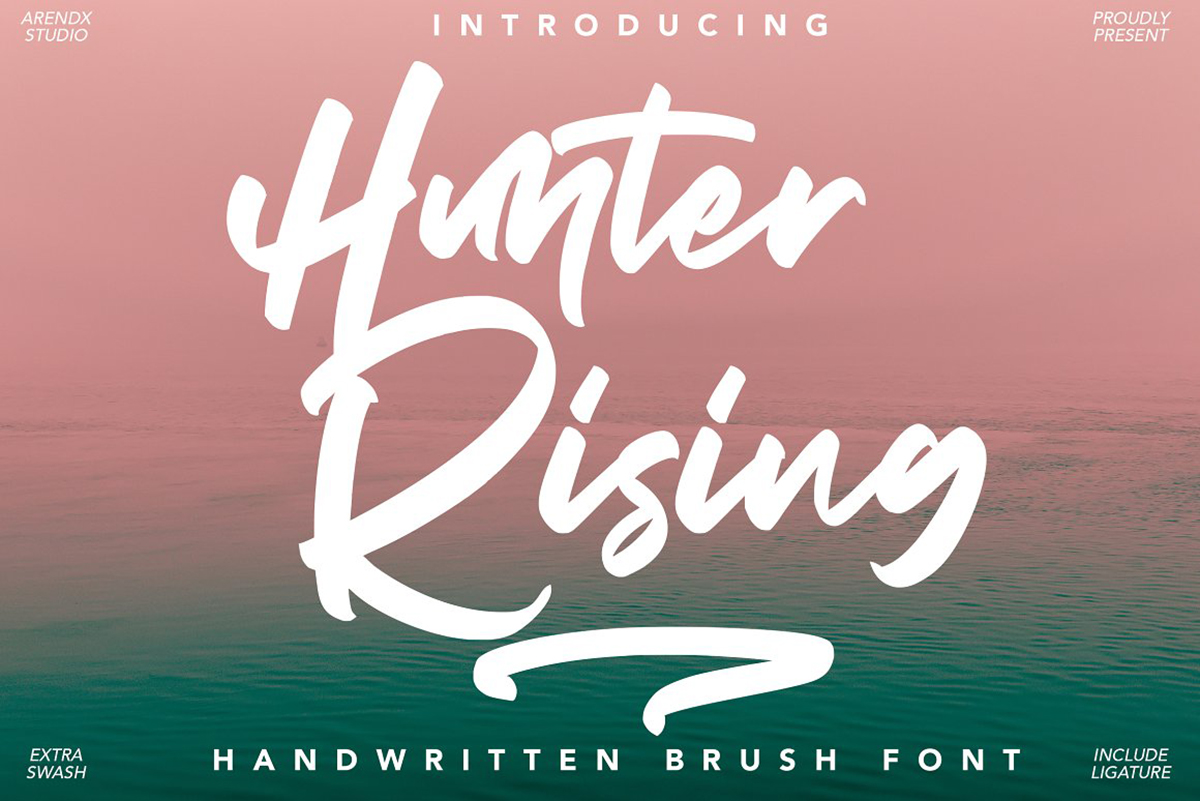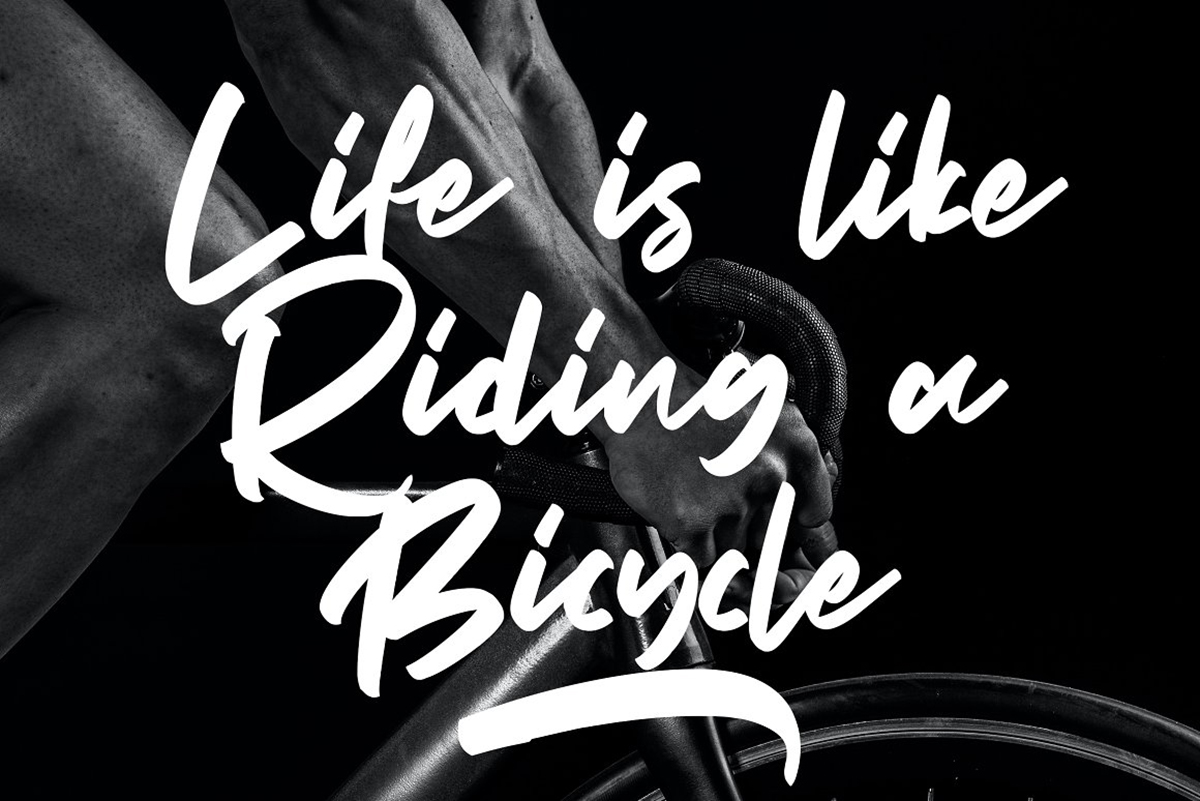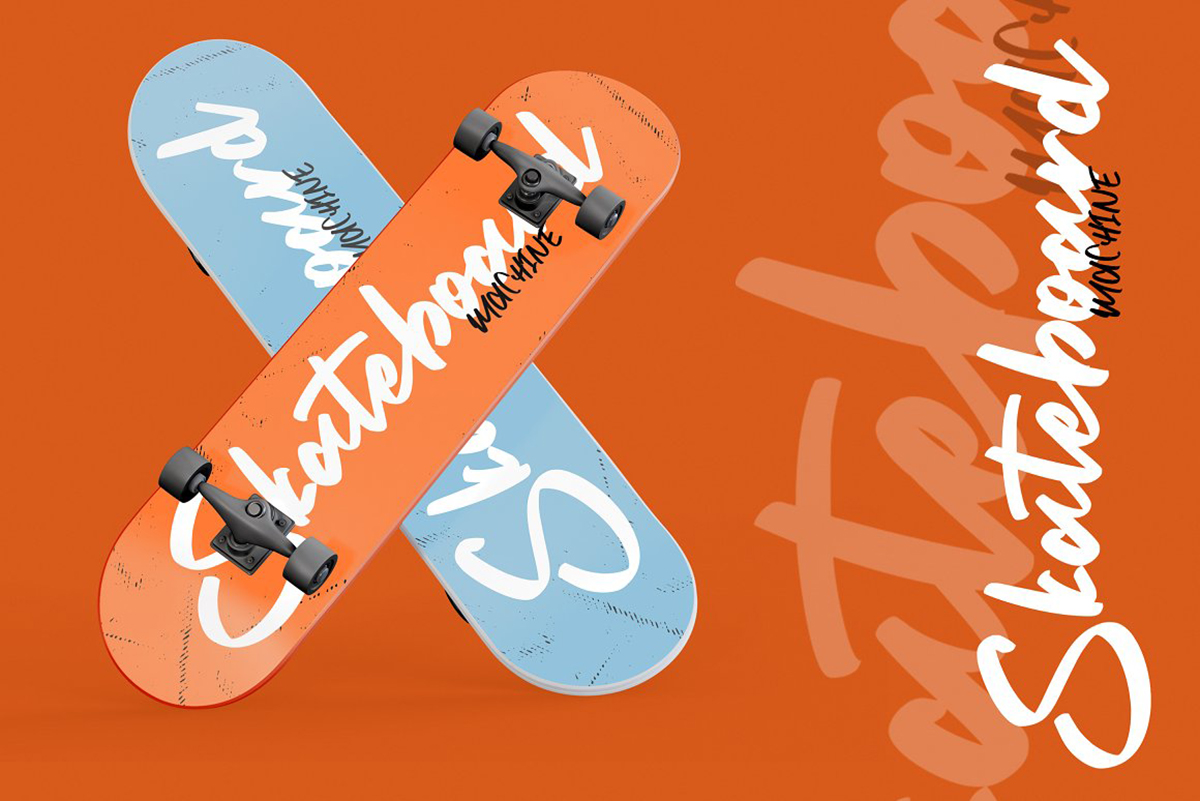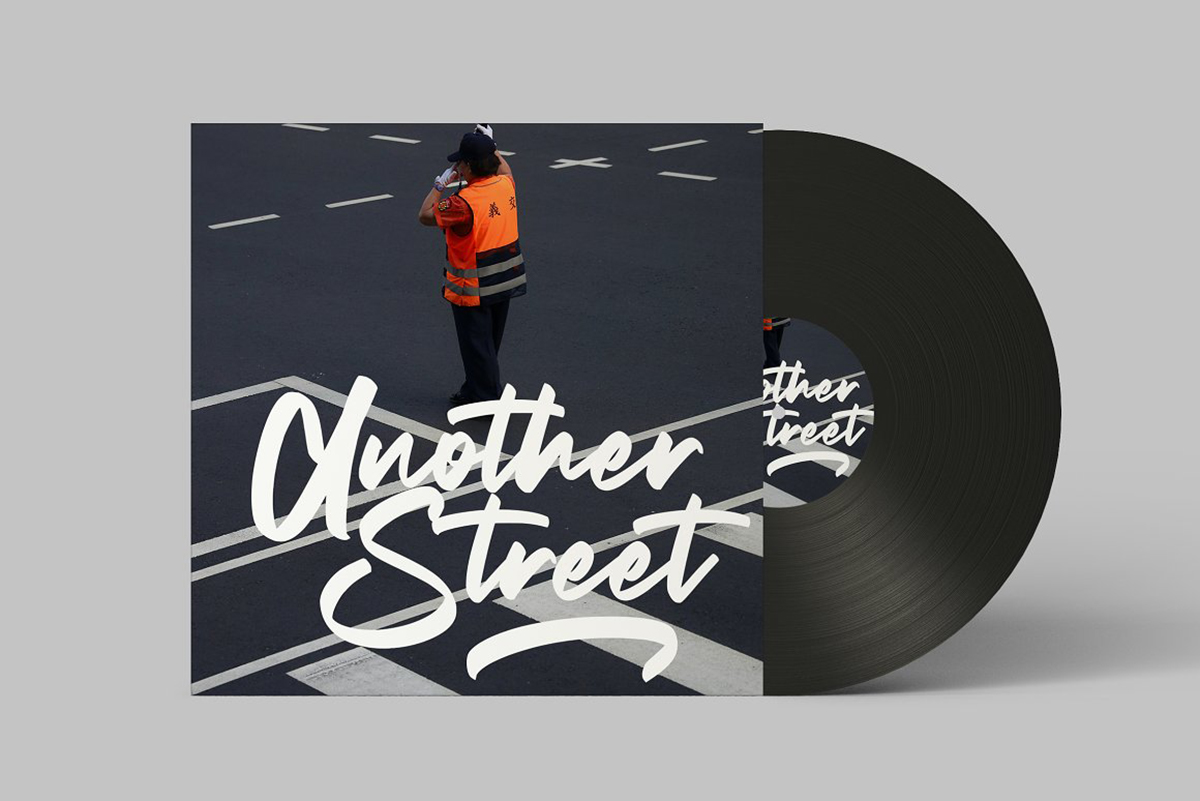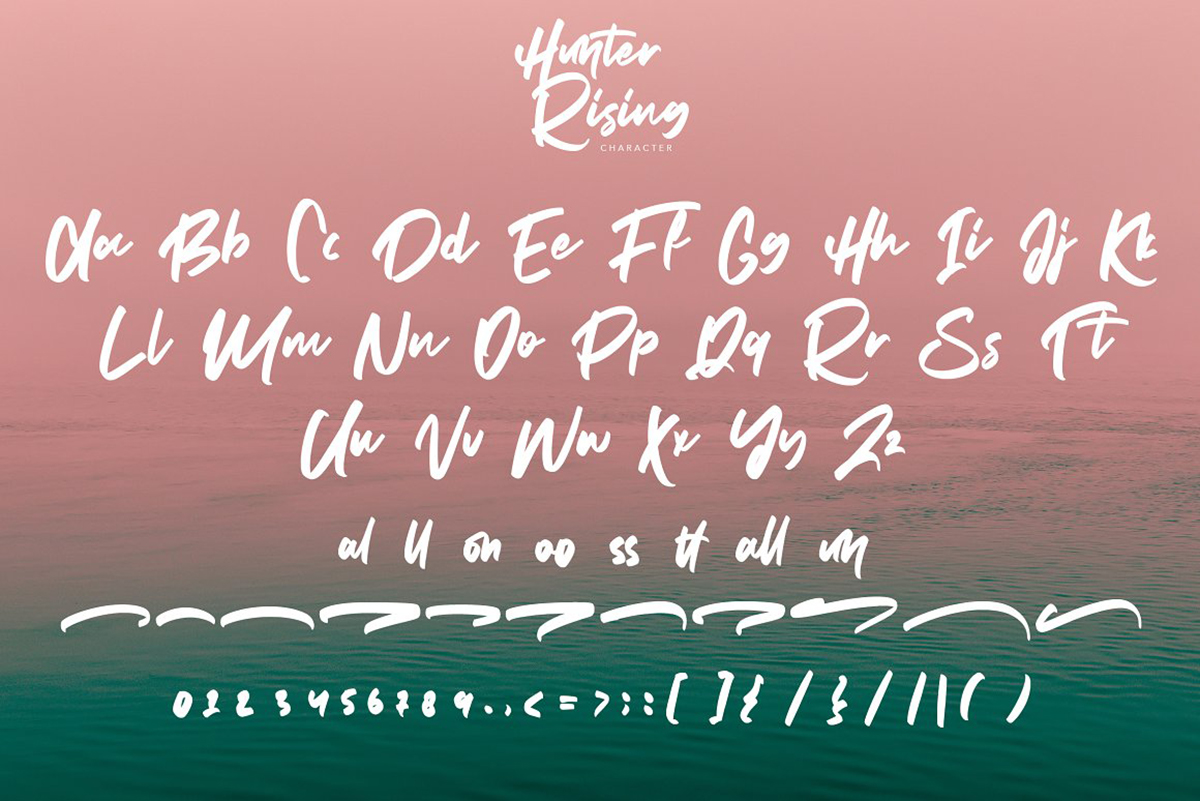
Hunter Rising Free Font
Hunter Rising Free Font is a beautiful and brushed handwritten font. It is the best choice for creating eye catching logos, branding and quotes. Every letter has a unique and beautiful touch, which will make your design come alive.